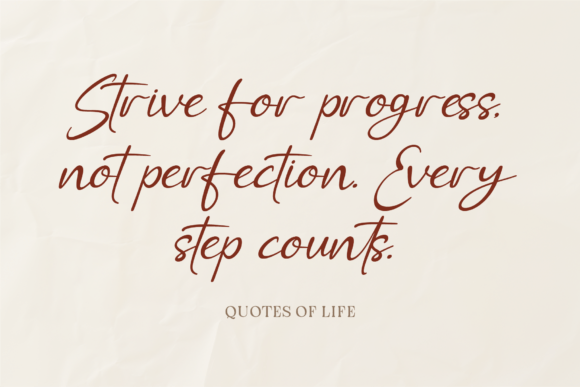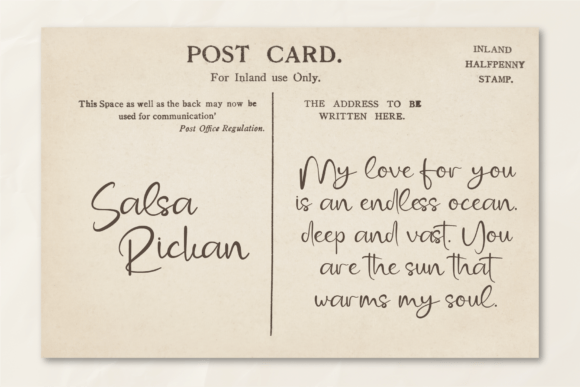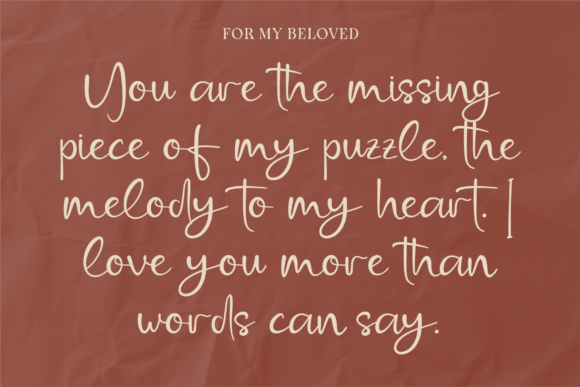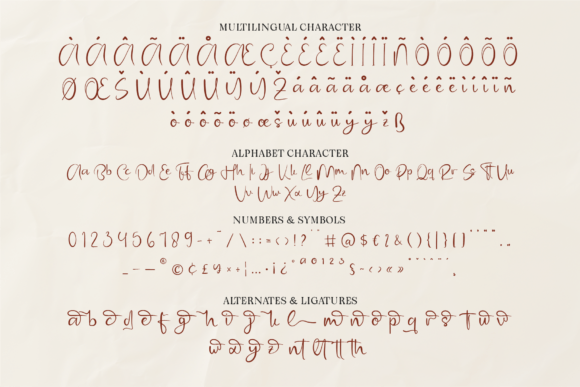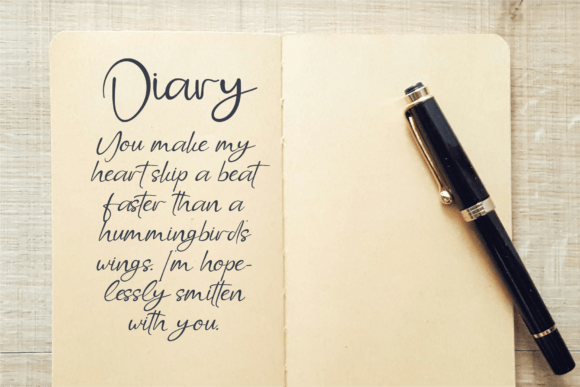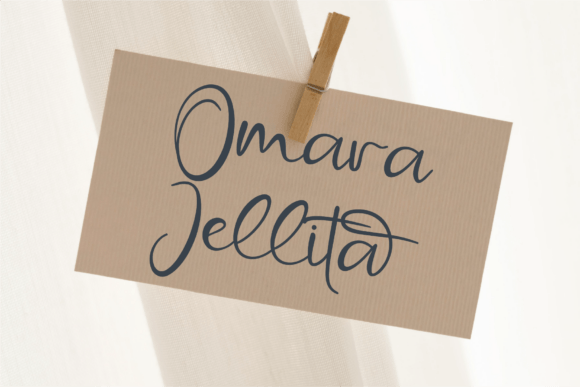
Introduction to Hallcyra Calligra Font
**Hallyra Calligra** is a beauty handwritten font that radiates timeless elegance and artistic sophistication.
With its graceful curves, delicate strokes, and natural flow, this font captures the essence of refined handwriting, making it perfect for a wide range of projects Whether youโre designing wedding invitations, personal stationery, heartfelt greeting cards, or branding materials, Hallyra Calligra adds a touch of charm and individuality.
Key Features of Hallcyra Calligra Font